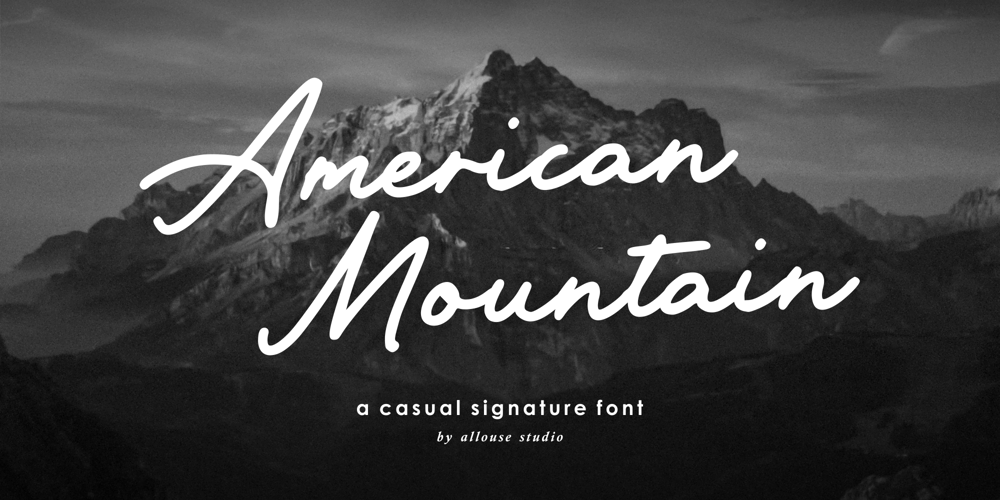
American Mountain Font Family was designed by Fachrizal Yusuf and published by Allouse Studio. American Mountain contains 1 styles and family package options. Proudly Presenting, American Mountain A Casual Signature Font.American Mountain is perfect for any titles, logo, product packaging, branding project, megazine, social media, wedding, or just used to express words above the background.American Mountain also come with Multi-Lingual Support.Enjoy the font, feel free to comment or feedback, send me PM or email. Thank You!